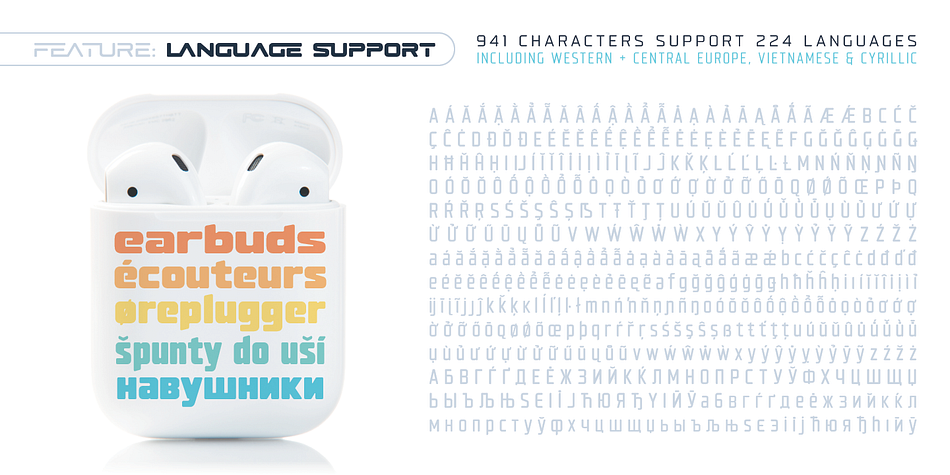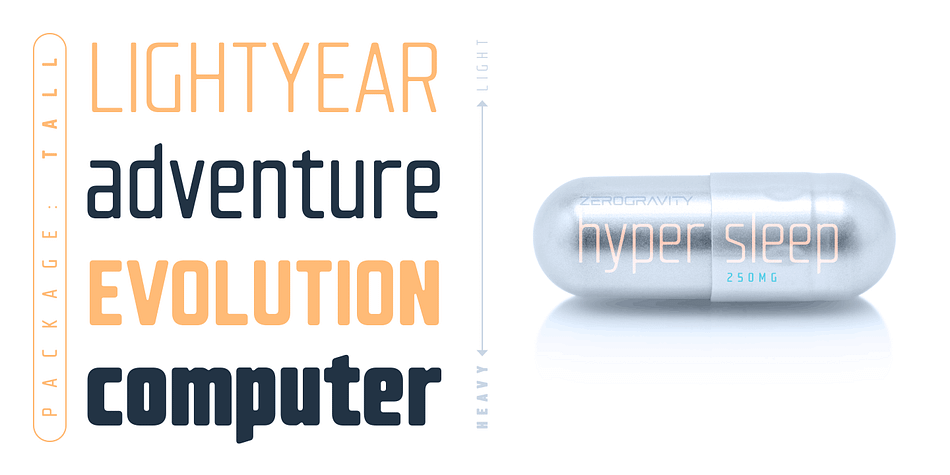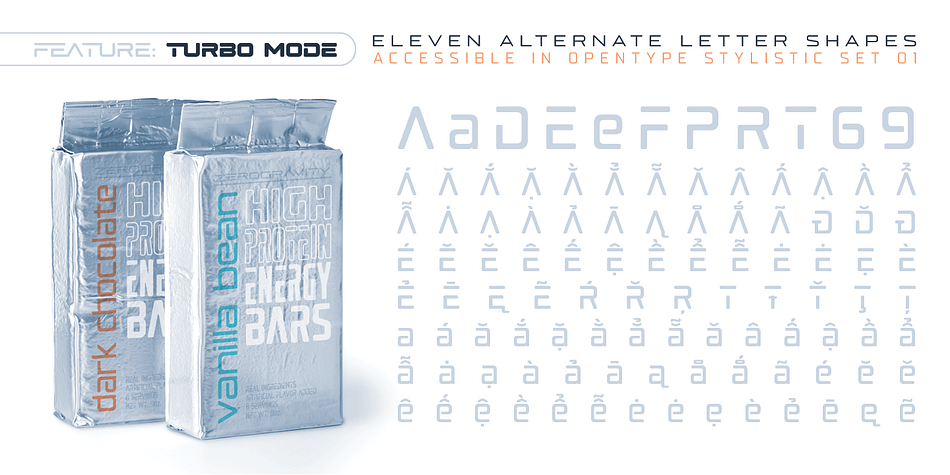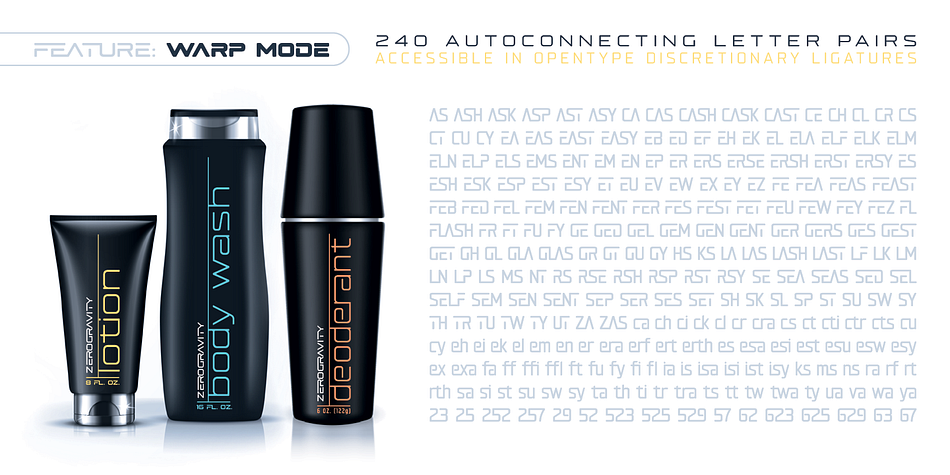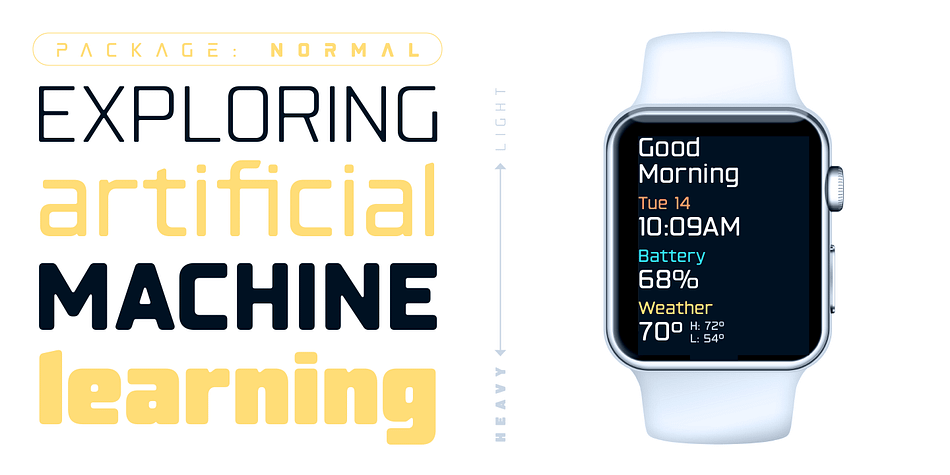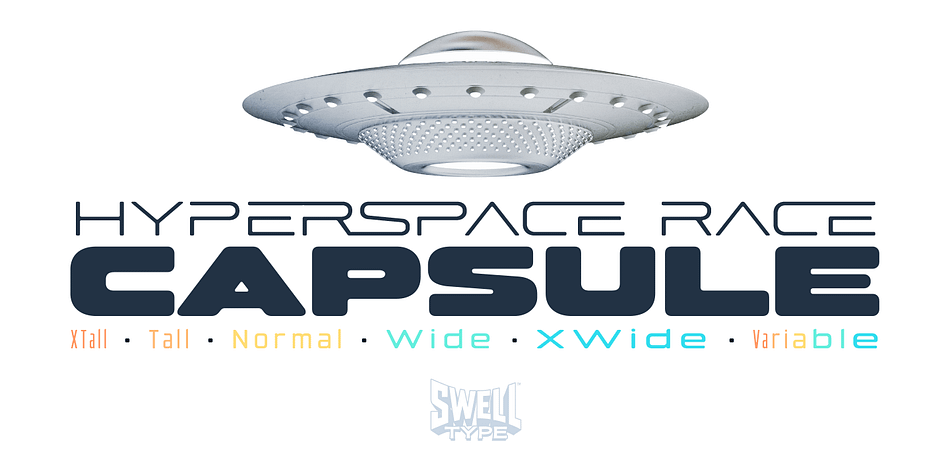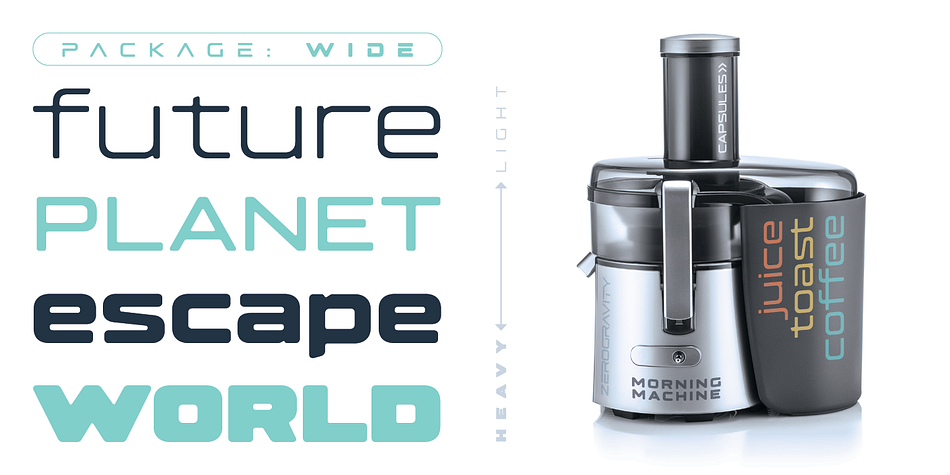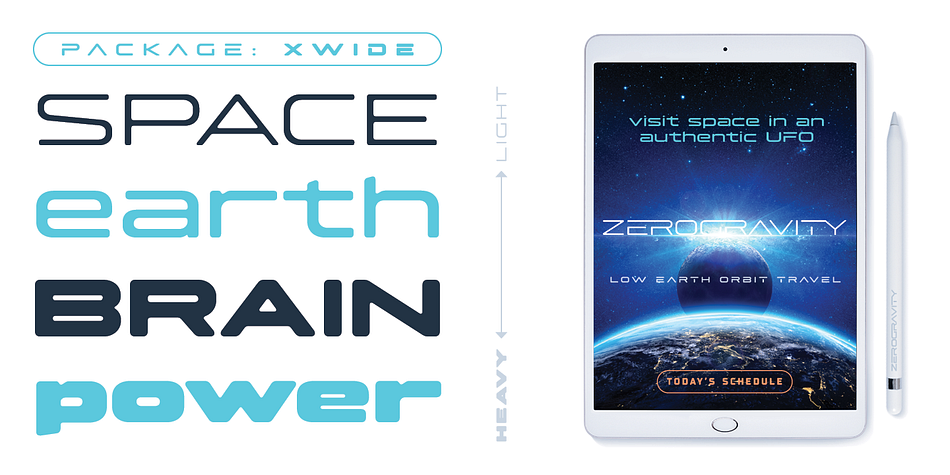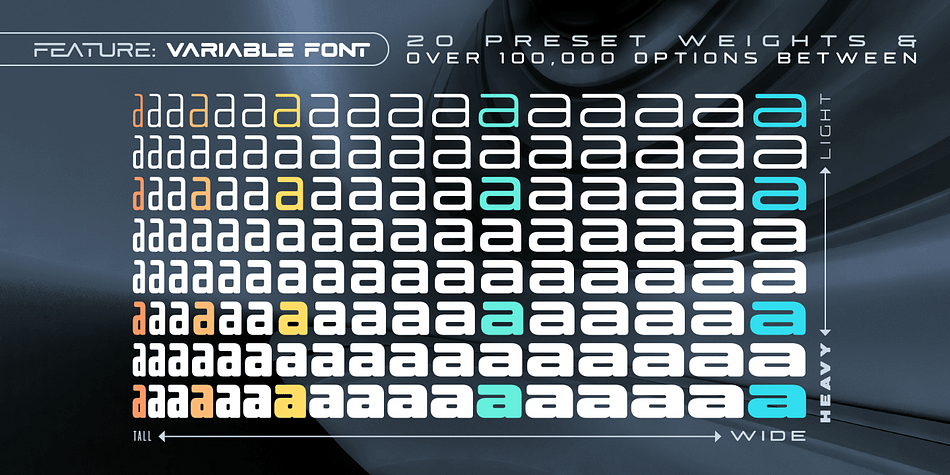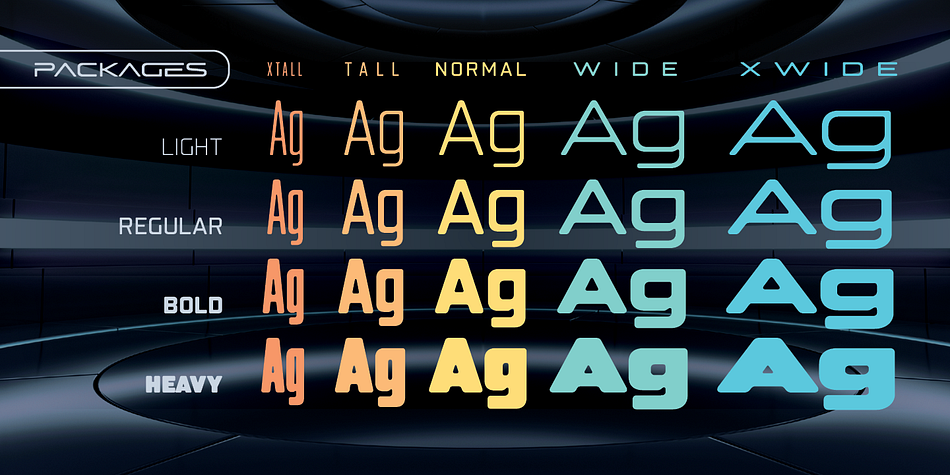
Hyperspace Race Capsule
Designed by John Roshell, Hyperspace Race Capsule is a display sans font family. This typeface has twenty-one styles and was published by Swell Type.
Welcome aboard the Hyperspace Race Capsule! Let the weight of gravity slip away as our interplanetary transport system takes you around the solar system in unparallelled style and comfort.
Our reclaimed UFO has been remodeled with soft, luxurious curves on the interior and the latest cutting edge flight technology under the hood, to meet all your typographic travel desires.
Each weight and package includes these luxurious five-star amenities:
• Kick your Capsule into TURBO mode to access eleven sleek, fast-moving alternate letter shapes.
• Hit WARP SPEED to cross time and space with hundreds of auto-connecting letter pairs.
• Chat with passengers from all over Earth, as Hyperspace Race Capsule effortlessly presents speech in 224 languages.
• Use the Variable font to access 20 preset weights plus over 100,000 options between.
Hyperspace Race Capsule is a versatile, full-featured font that’s perfect for galaxy-wide branding projects, now and into the future.